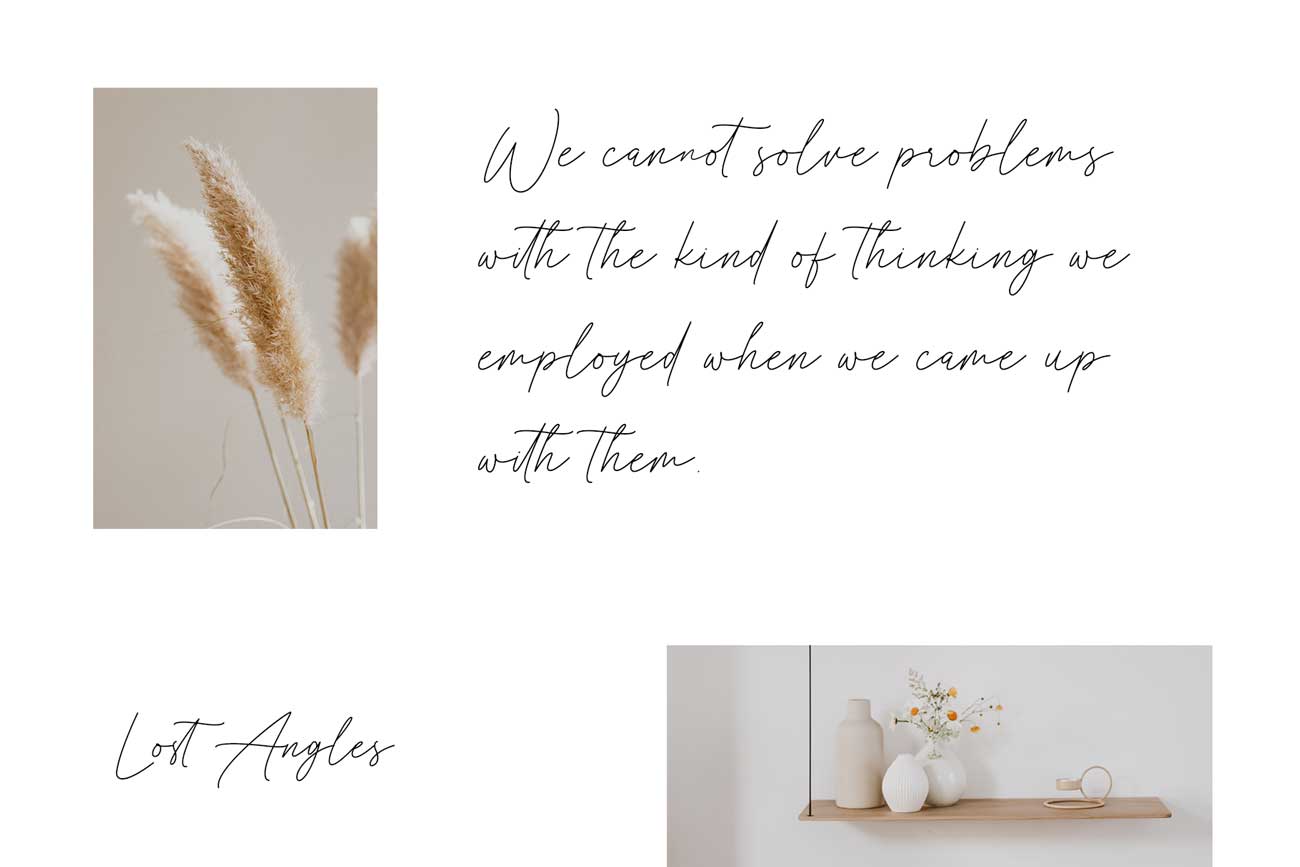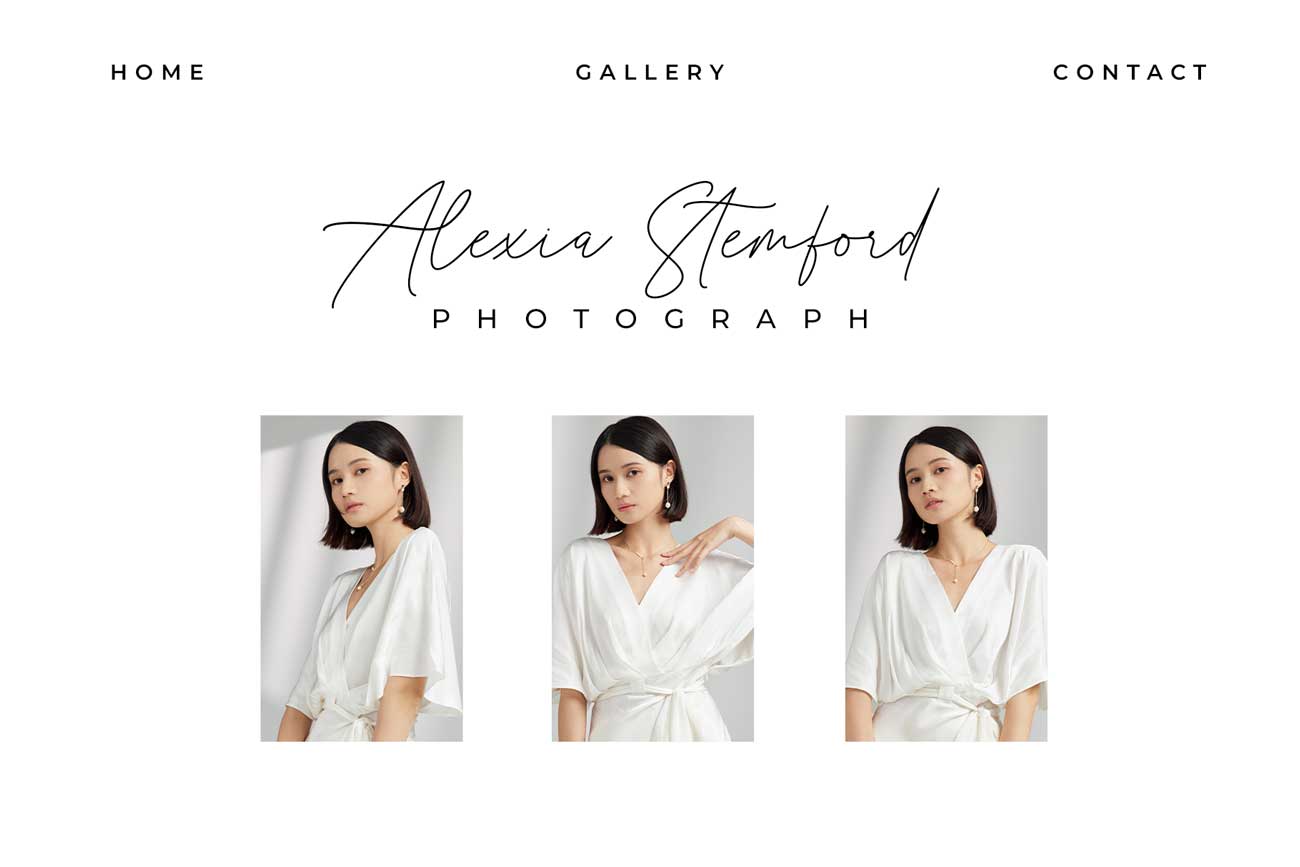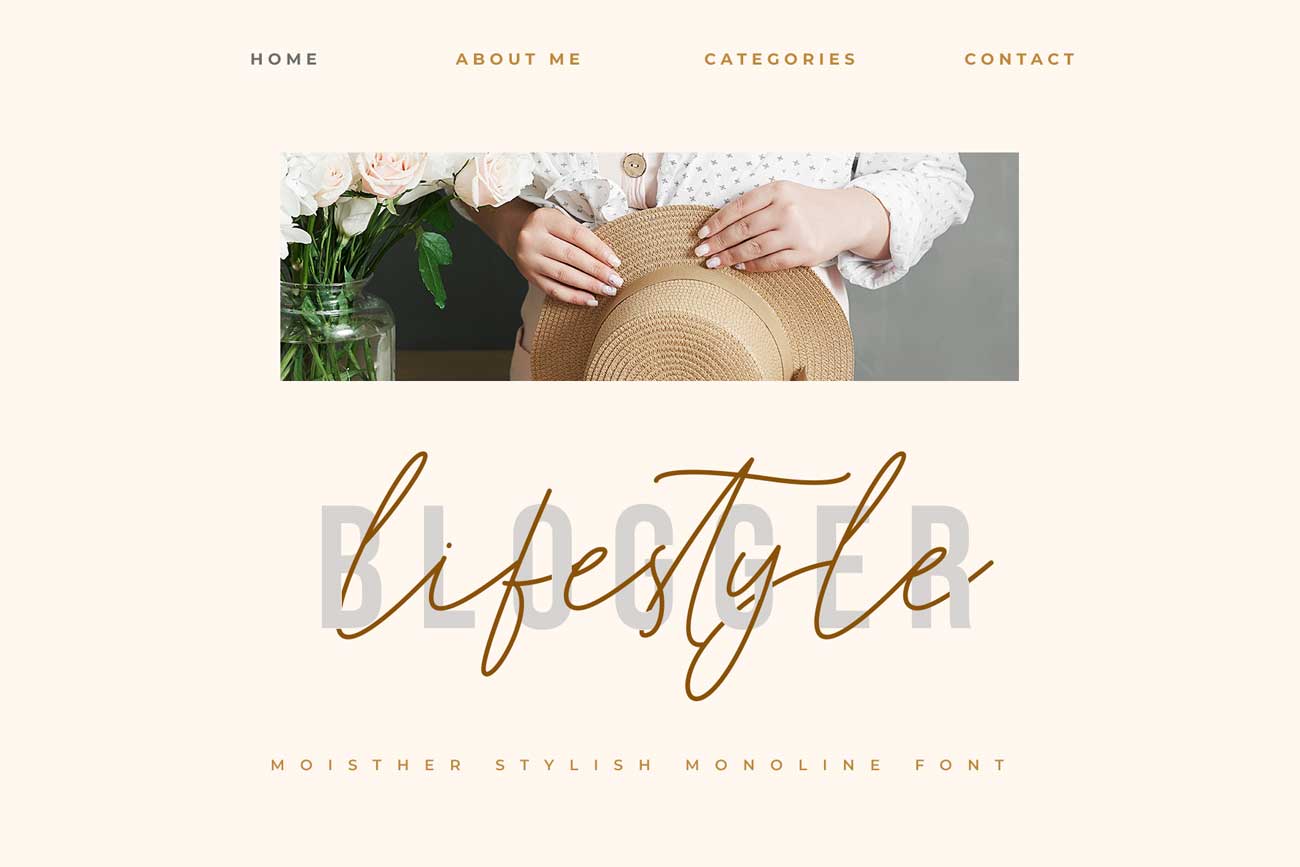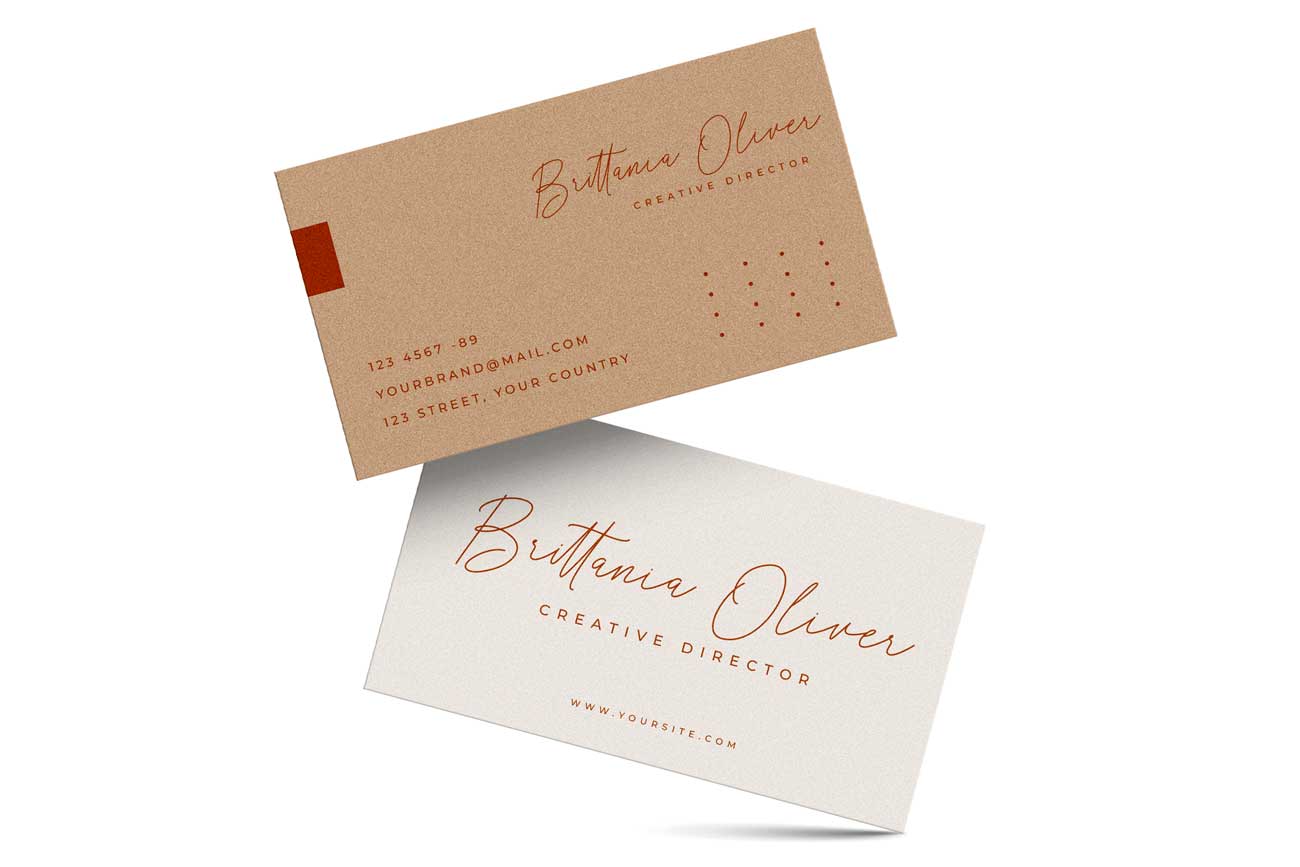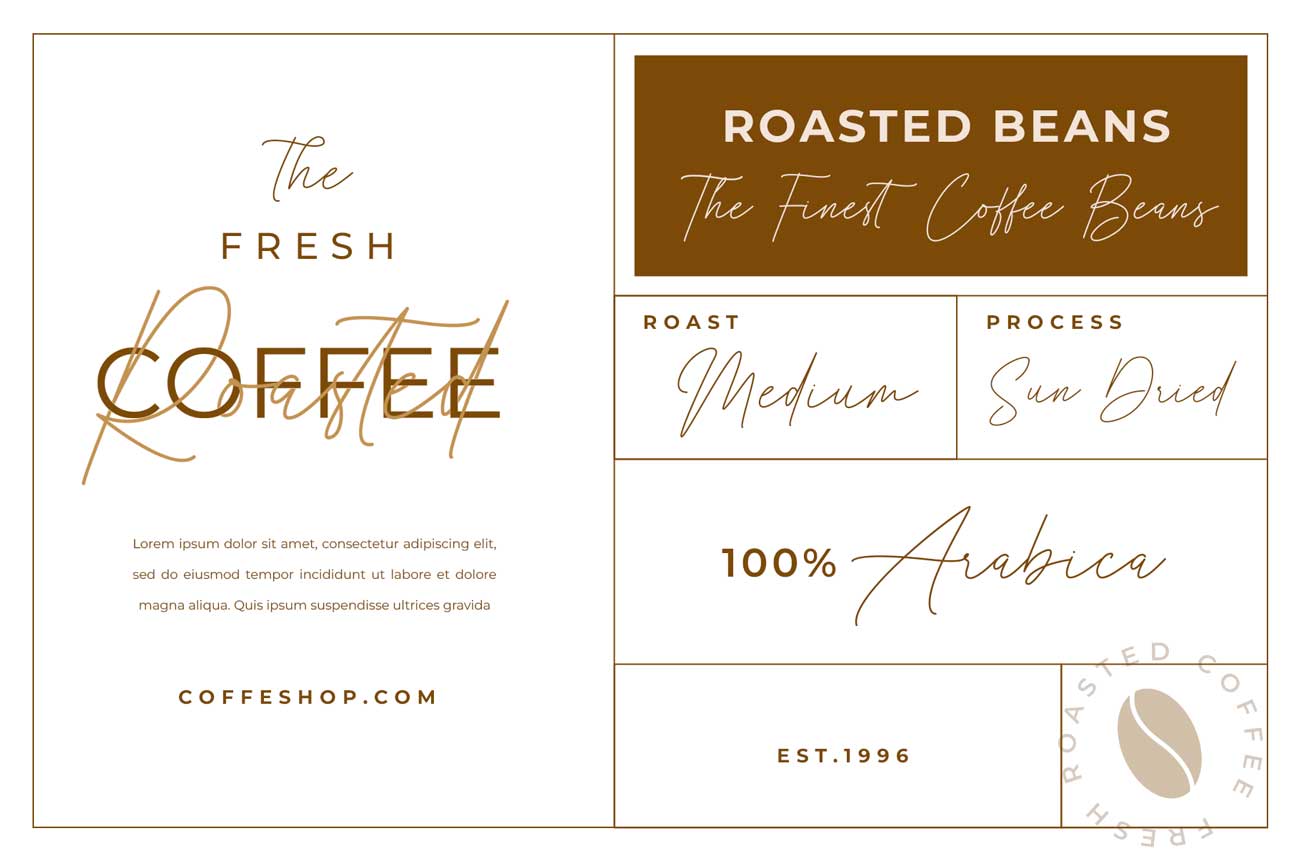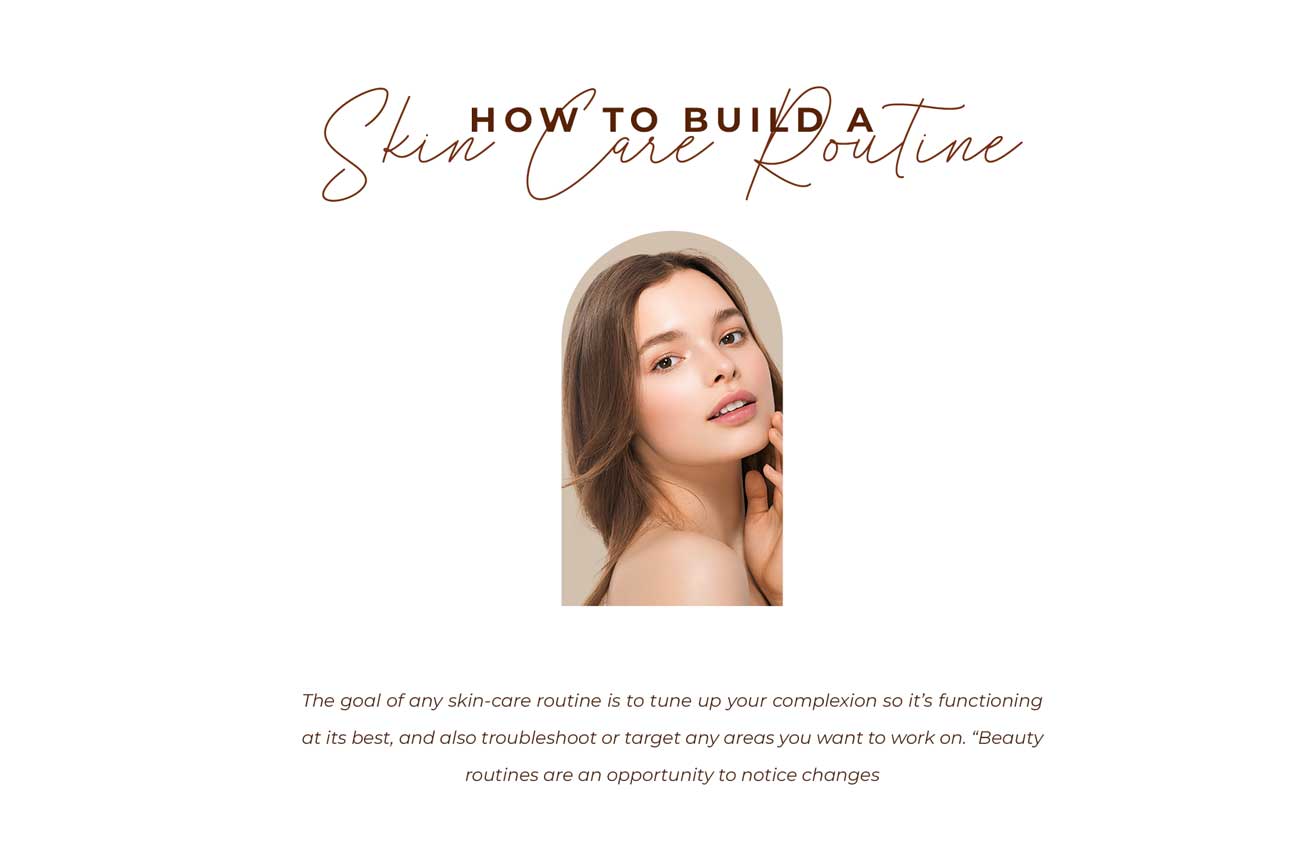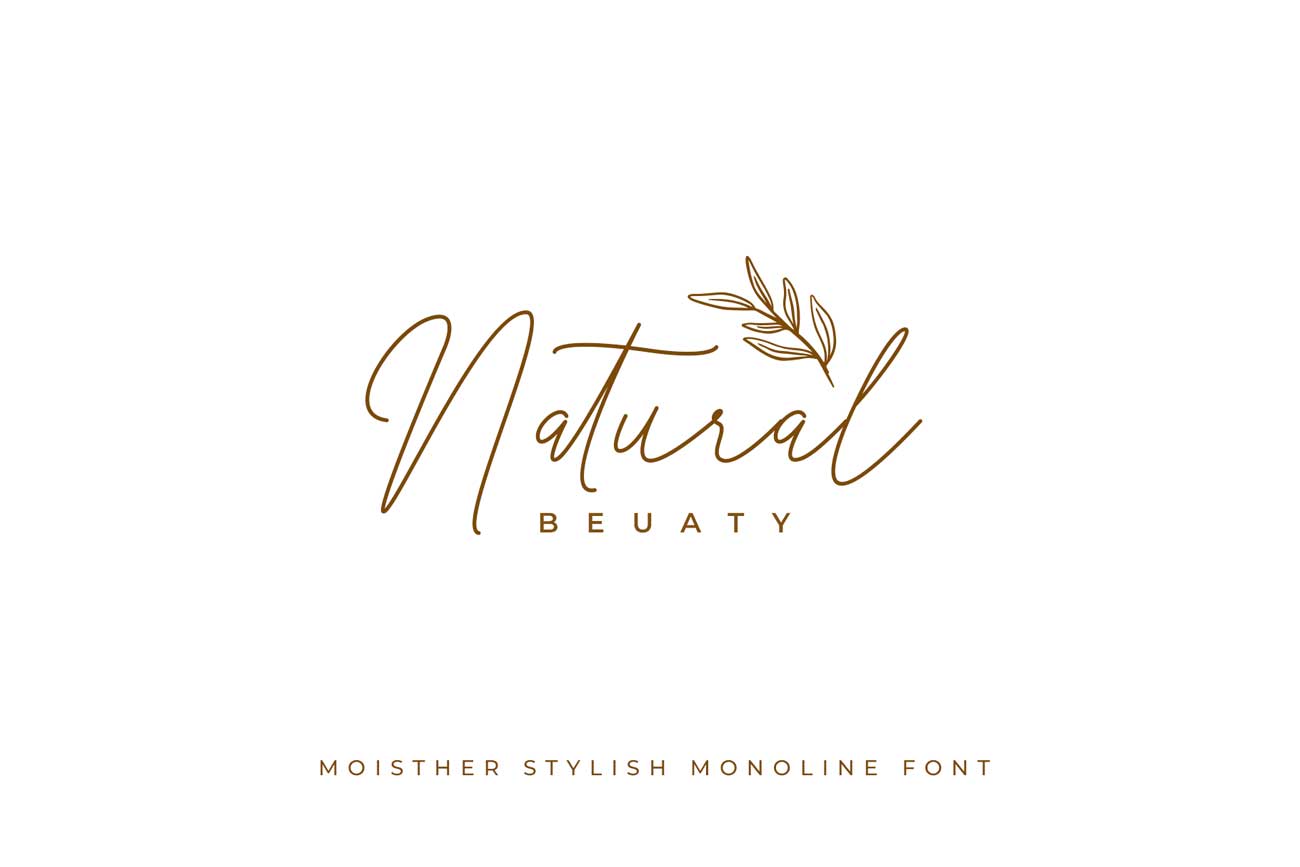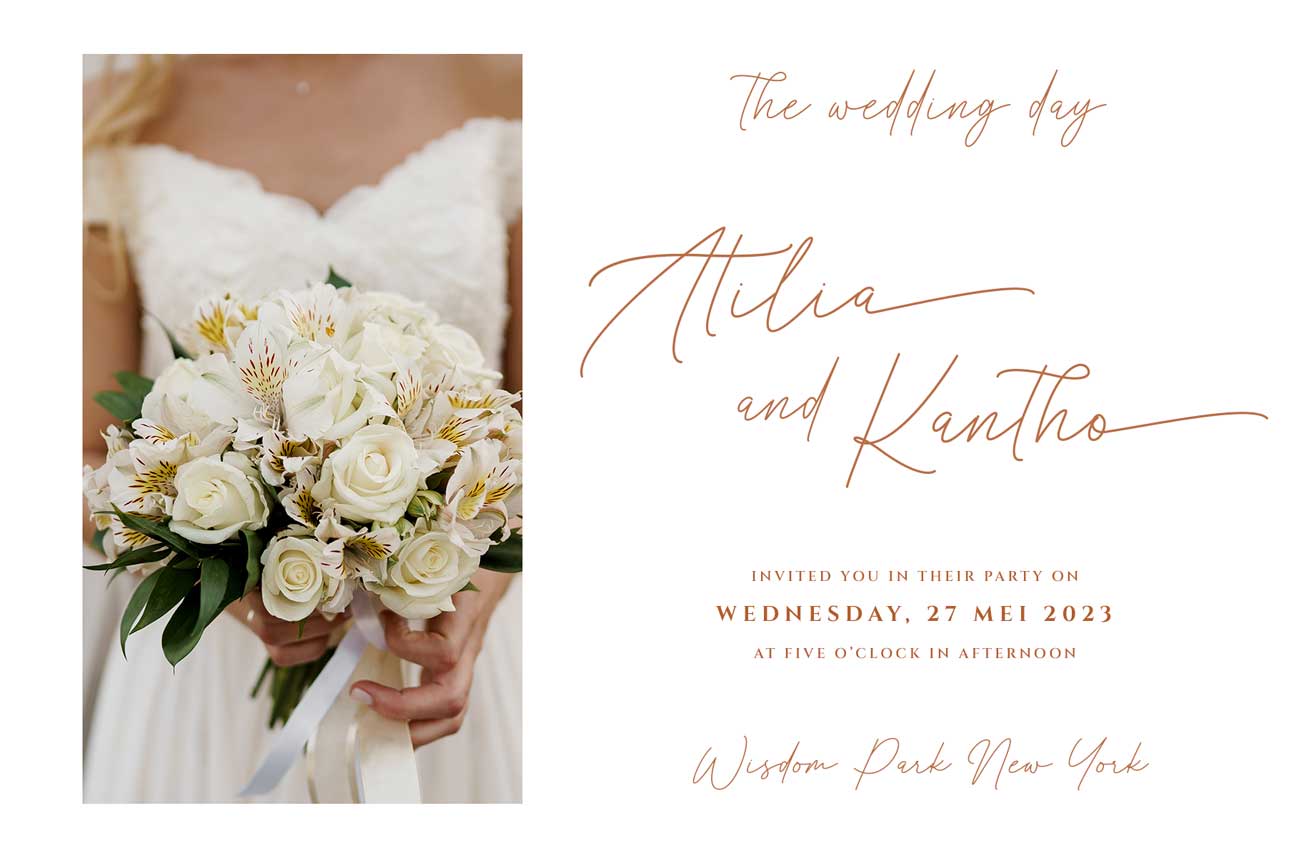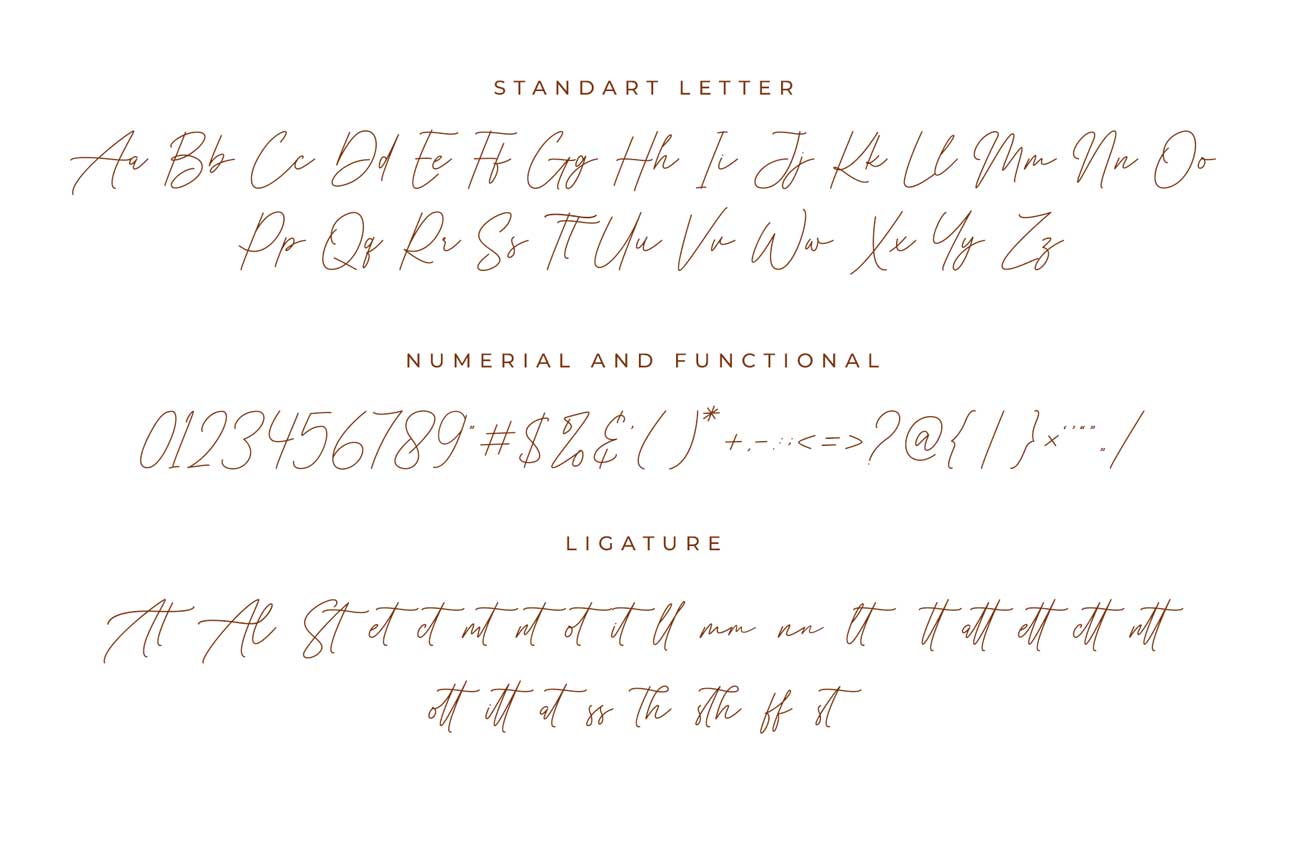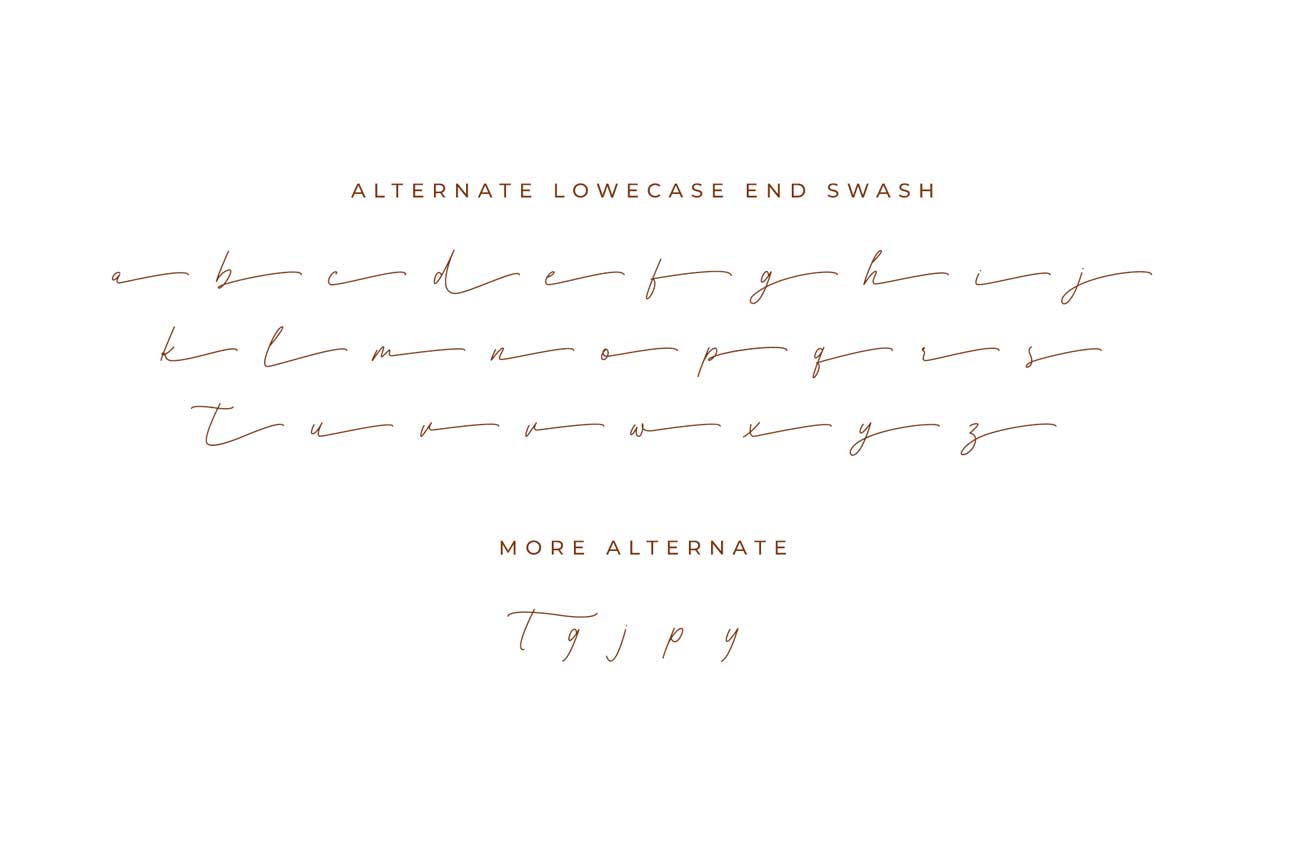
Moisther Stylish Monoline Font
Moister is elegant style which can be interpreted professional. we keep this font looks elegant, luxury, premium, modern, readable, stylish, feminine, girly, catchy and easy to use.
Moisther is the great choice for watermark on photography, signature or signature logo design, quotes, album cover, magazine, business card and many other design project. Moisther here to make your work to high level!!!
• Ligature and Alternate